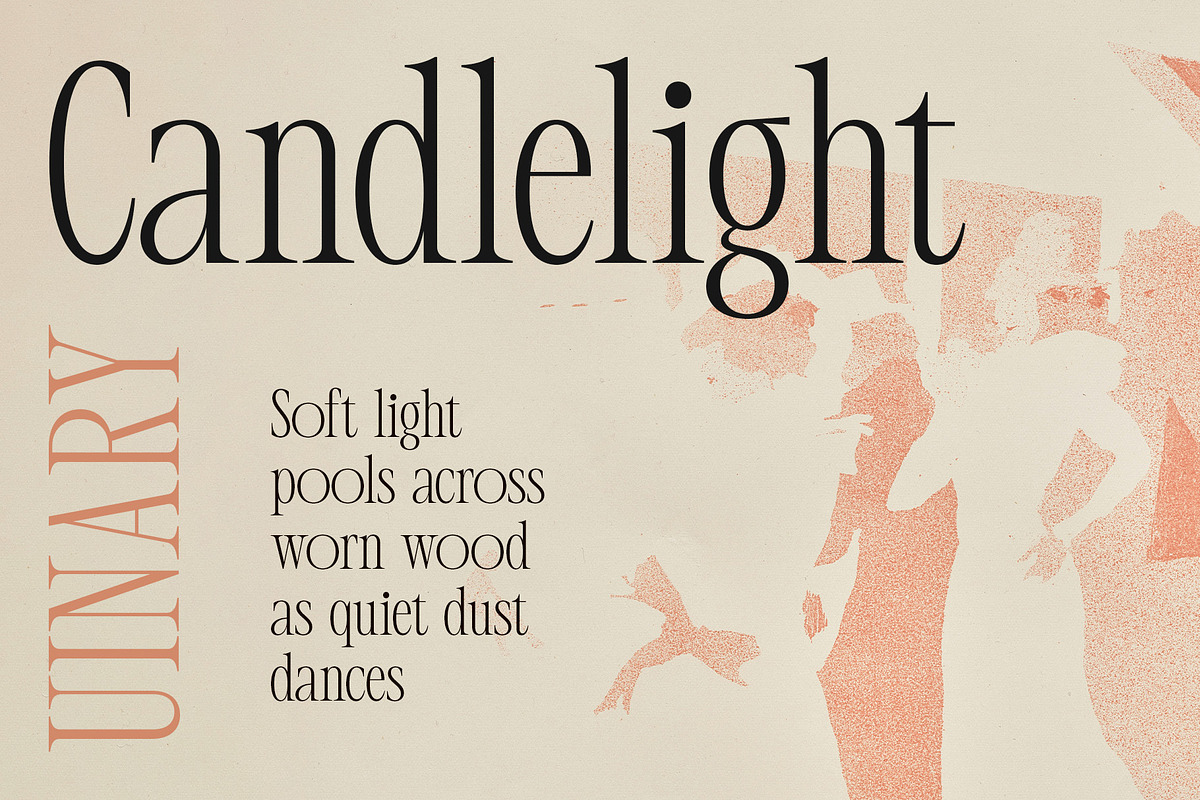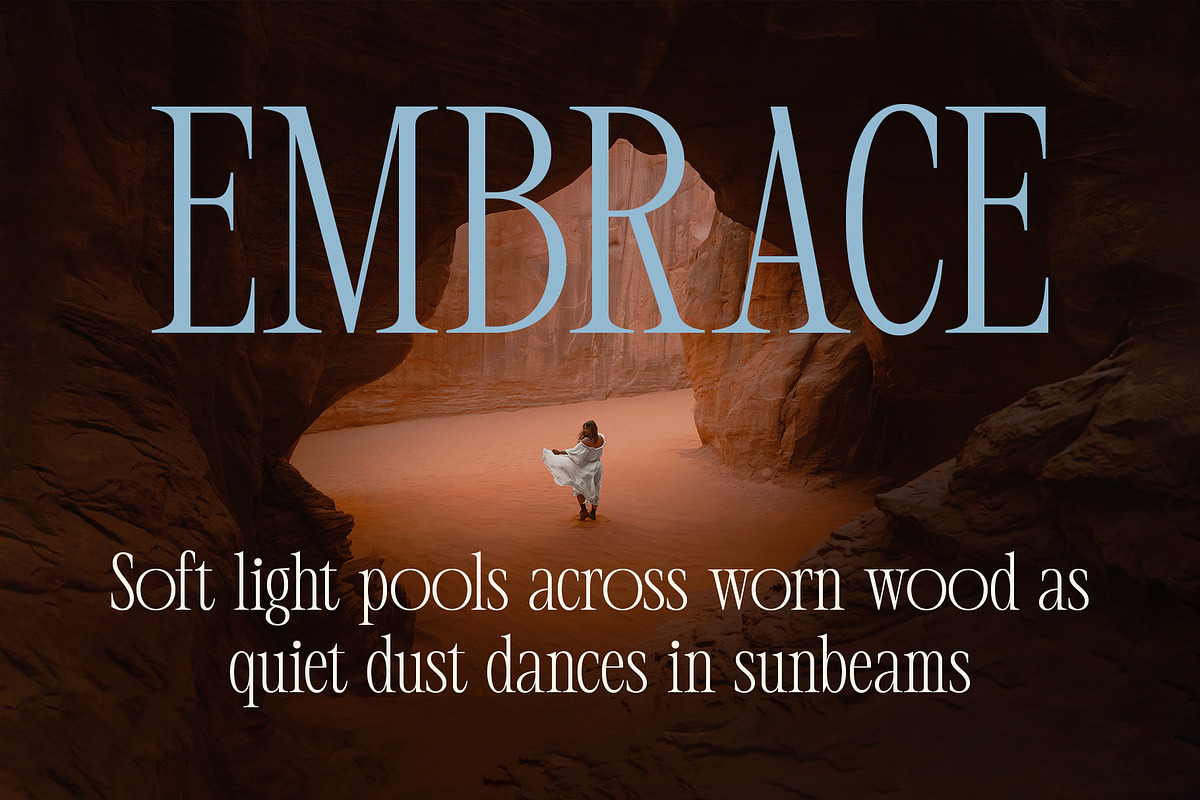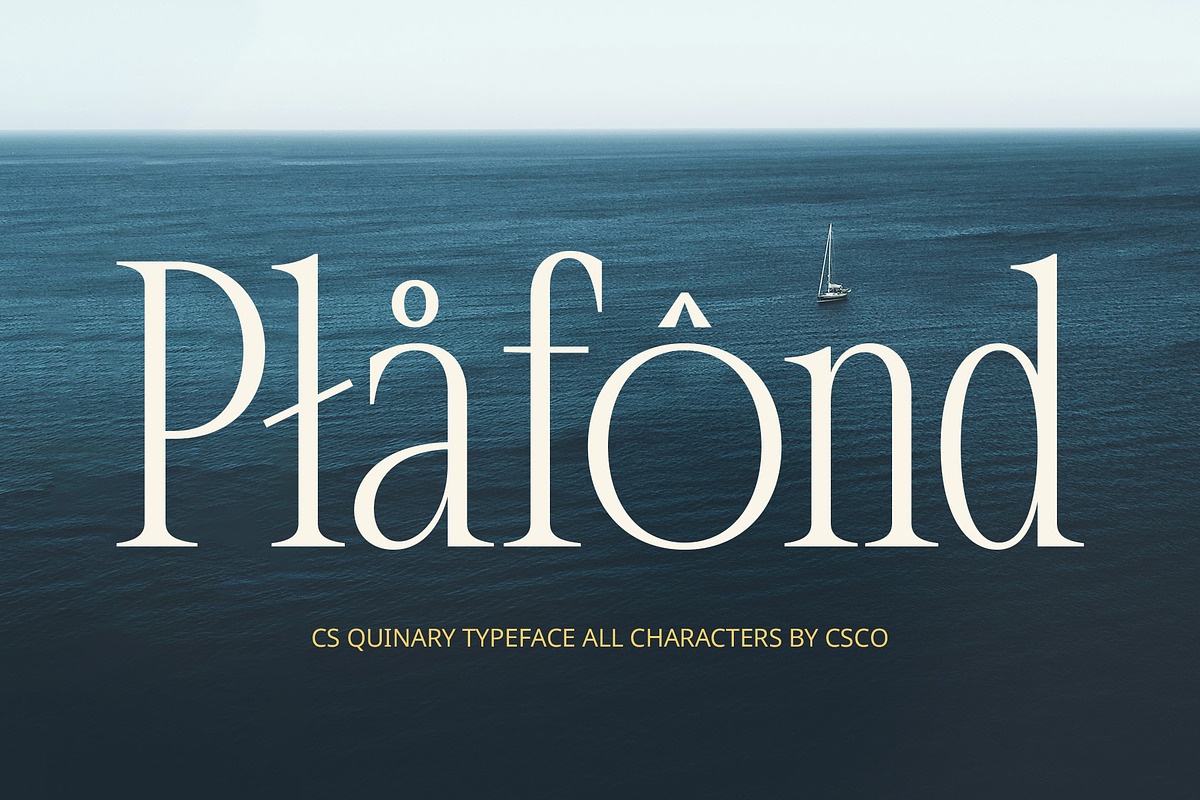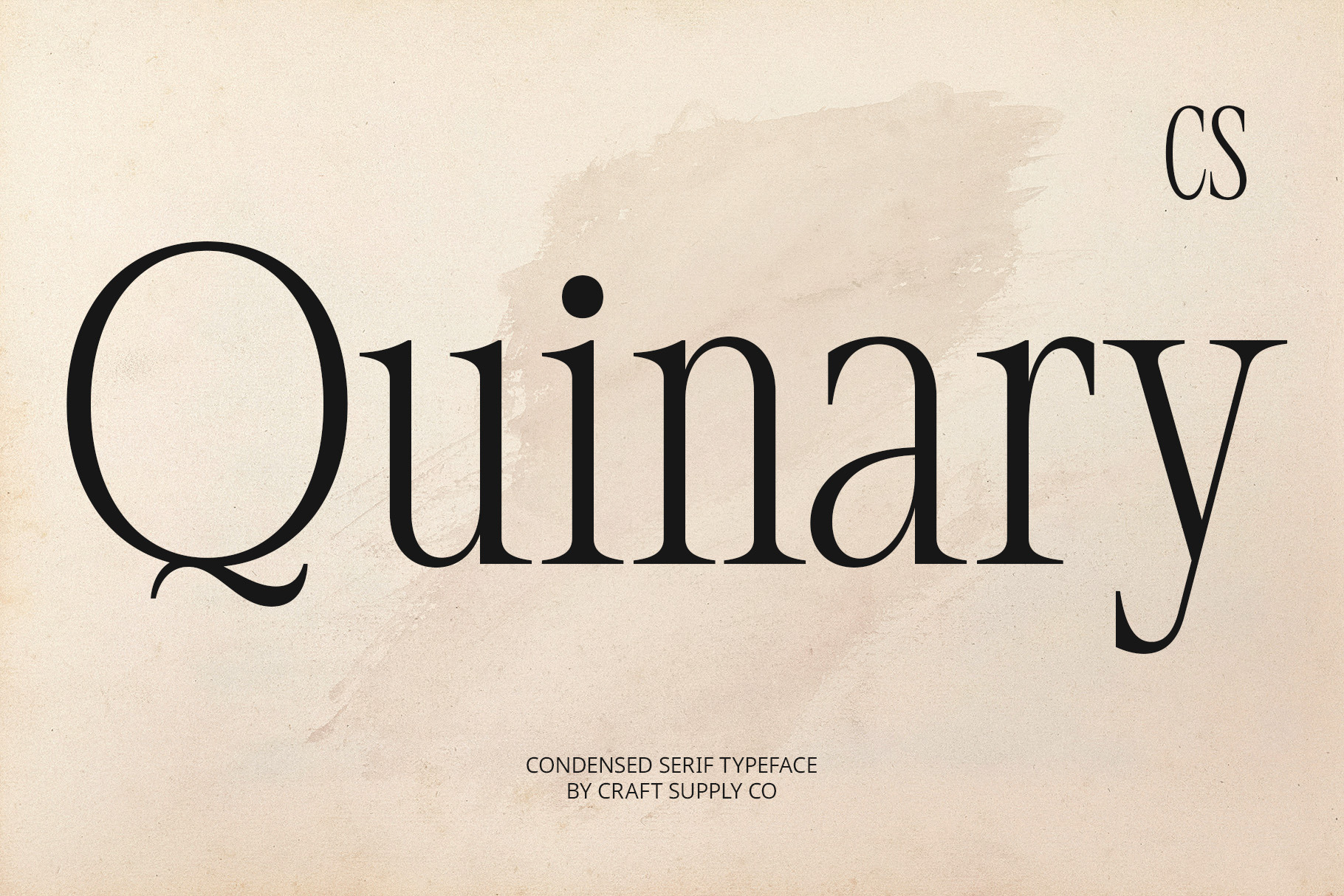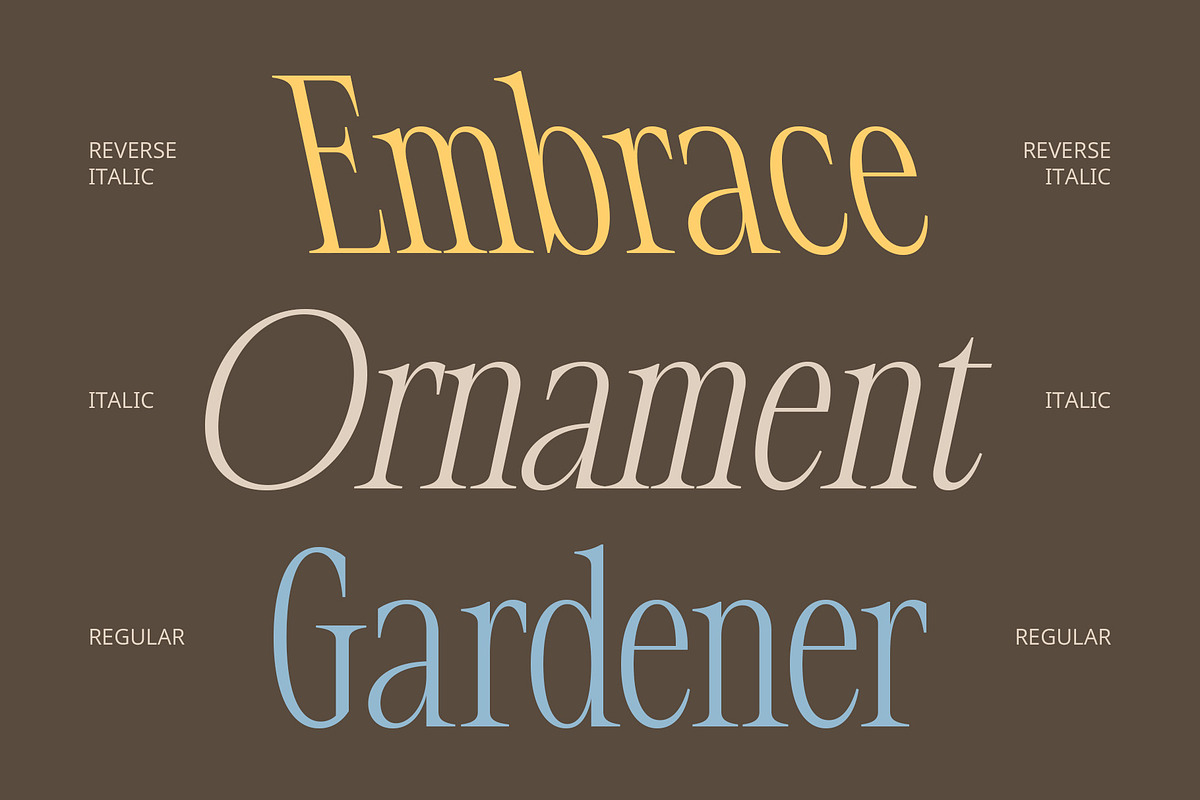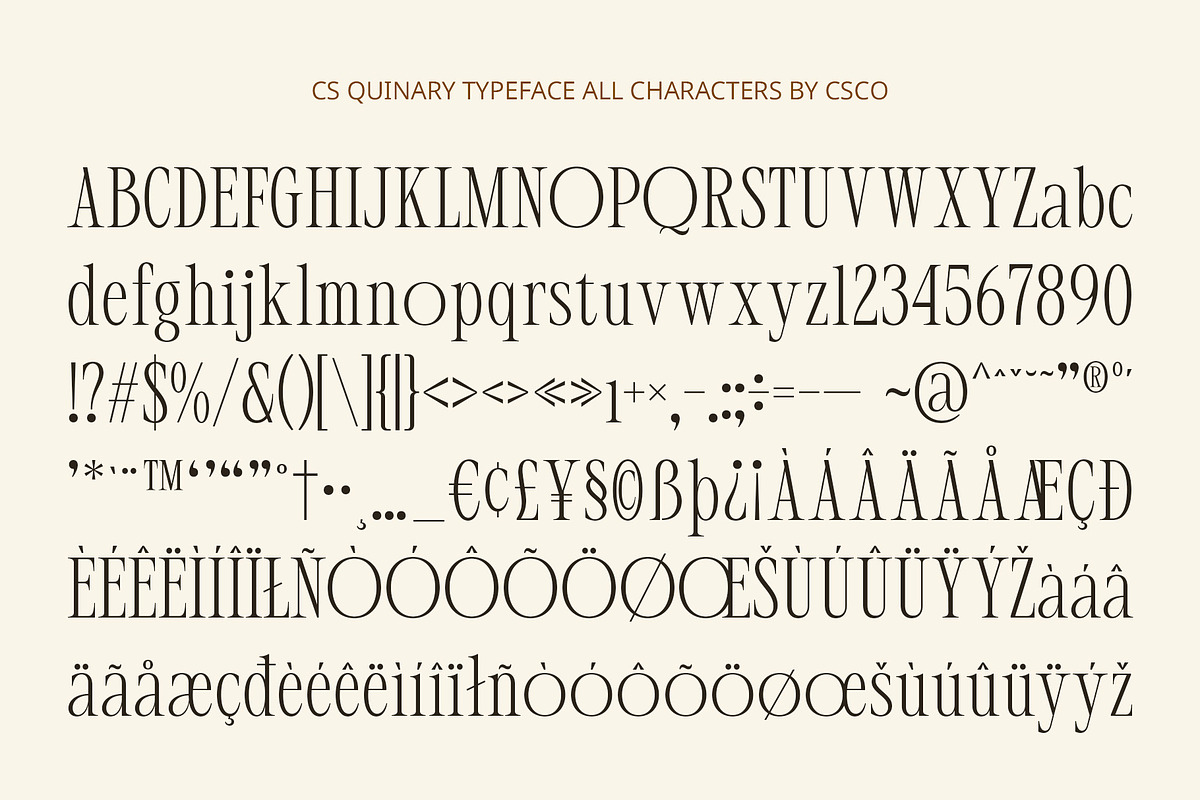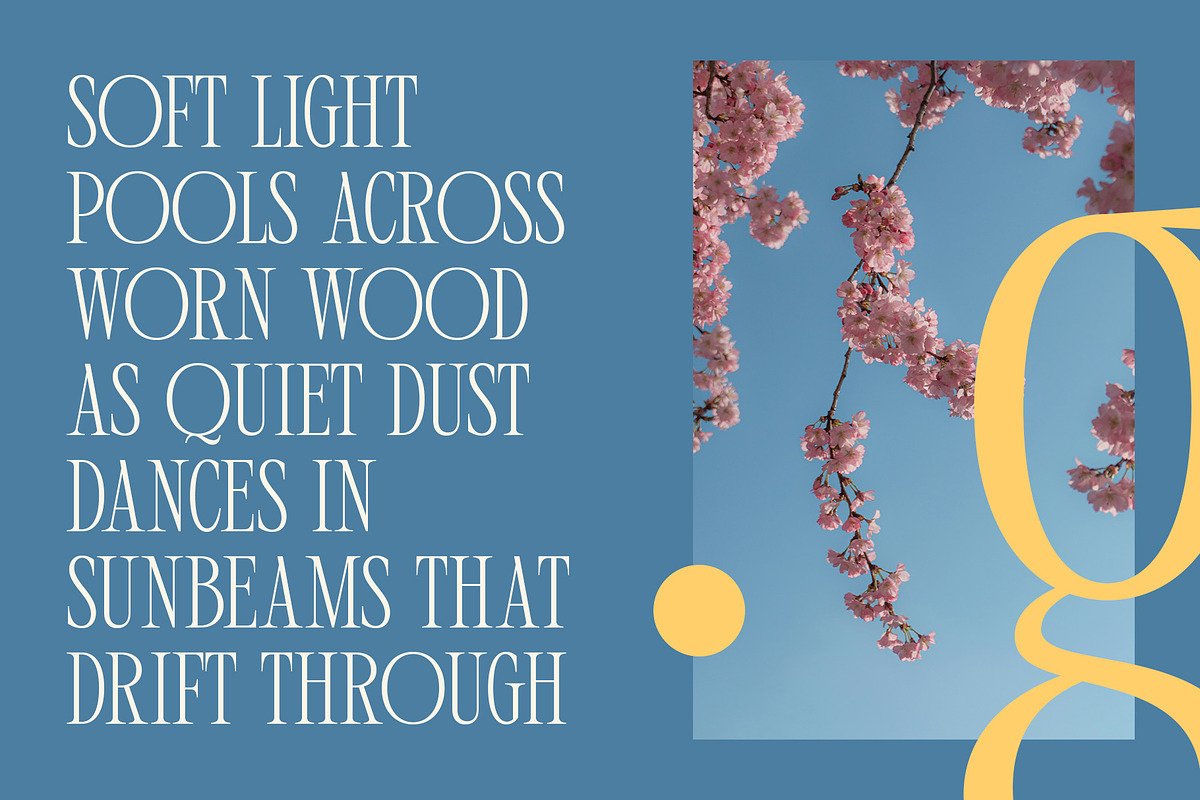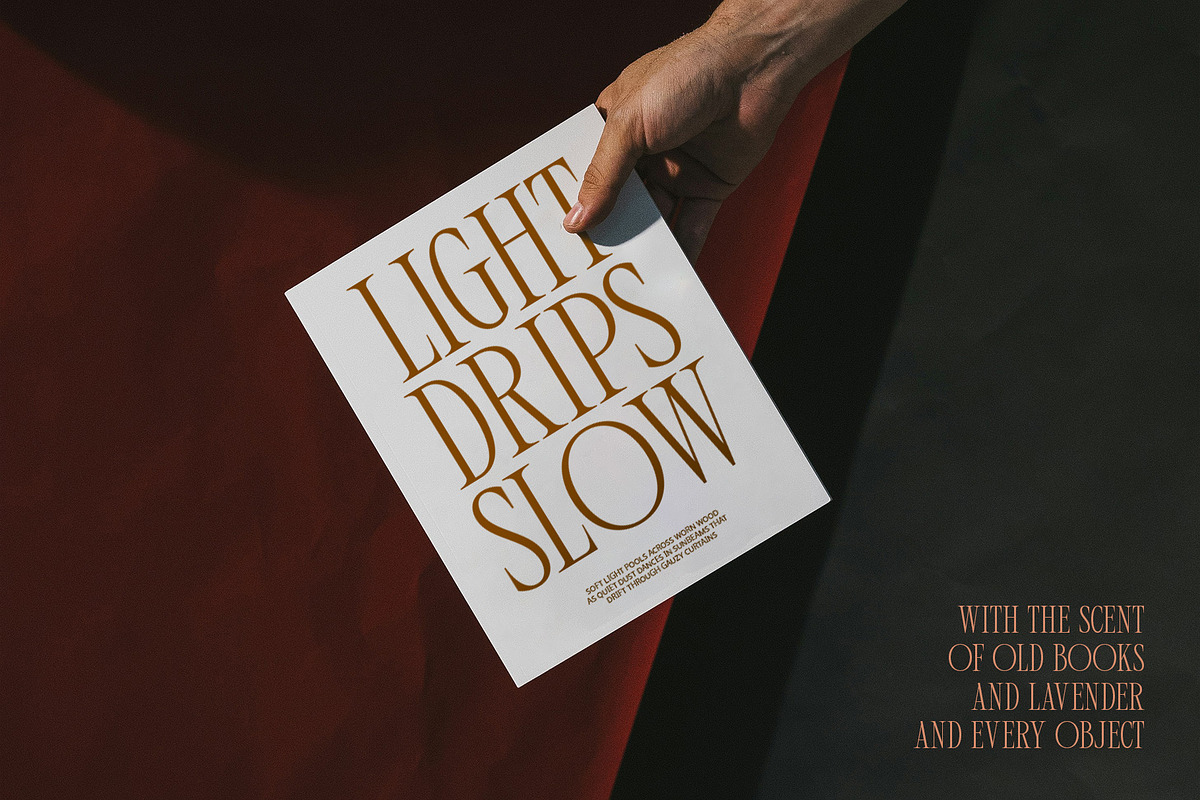
CS Quinary – Condensed Font
CS Quinary – Condensed Font: Graceful Precision in a Modern Serif
Elegant Structure with a Contemporary Edge CS Quinary is a modern serif font defined by its clean lines, slim letterforms, and condensed proportions. It merges refined elegance with modern simplicity, delivering a typeface that feels both poised and progressive. Its sleek structure makes it perfect for high-end design projects seeking clarity and style.
Condensed Form for Space-Efficient Sophistication Designed with narrow width and tall x-height, CS Quinary maximizes vertical space while maintaining legibility. This condensed design is perfect for editorial layouts, headlines, and branding where space is limited but impact is essential. It lends text a sleek, upright character—ideal for modern aesthetics.
Luxury Meets Professionalism With its fine serifs and minimalist detailing, CS Quinary radiates a luxurious and professional tone. The font’s balance between grace and boldness makes it a great fit for fashion branding, elegant packaging, and corporate design. It communicates confidence without excess.
Perfect for Modern Editorial and Branding Whether you’re designing a contemporary magazine, crafting visual identity for a premium brand, or creating marketing materials with modern flair, CS Quinary offers the sophistication and versatility you need. Use it when your project demands both finesse and functionality.
- CS Quinary Regular
- CS Quinary Italic
- CS Quinary Reverse Italic